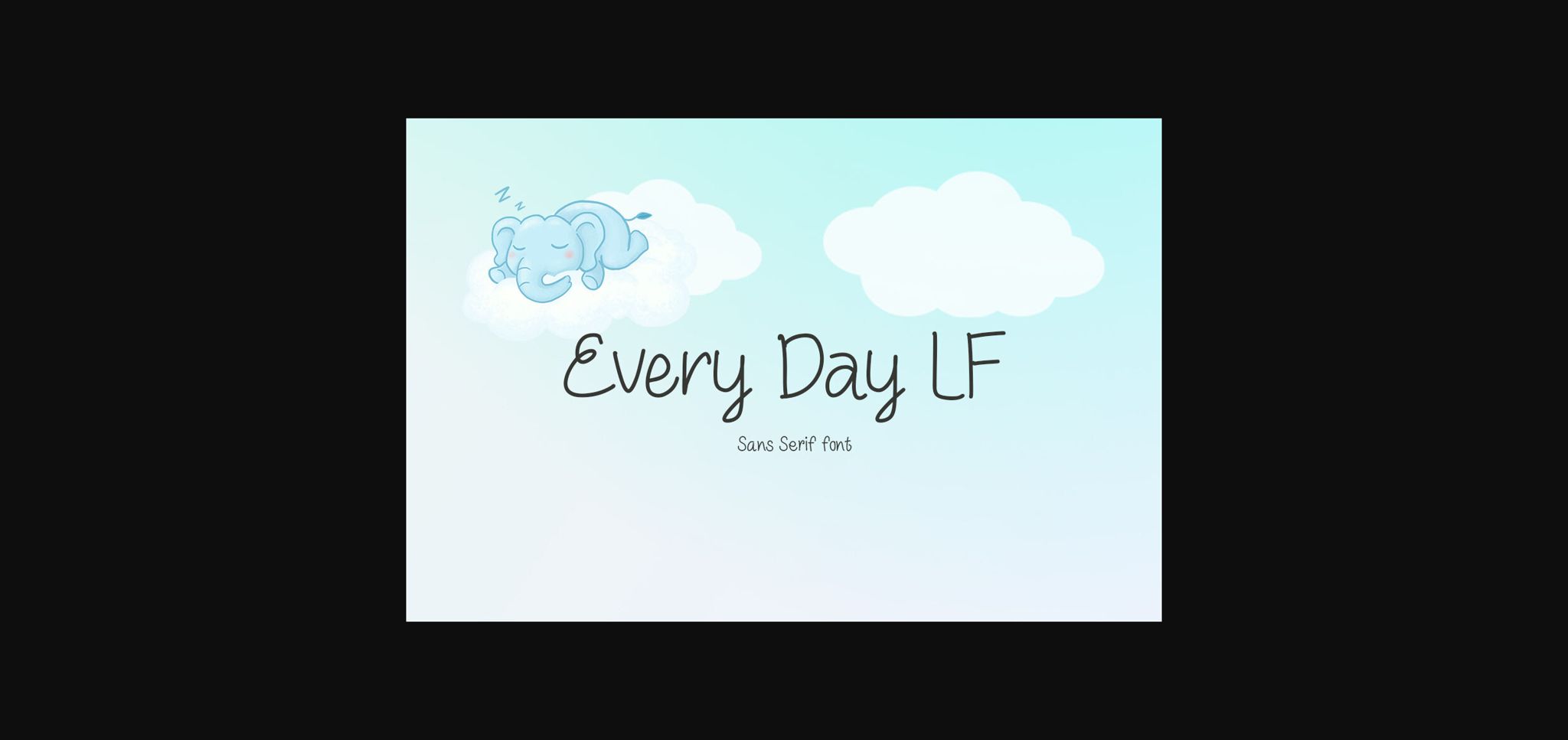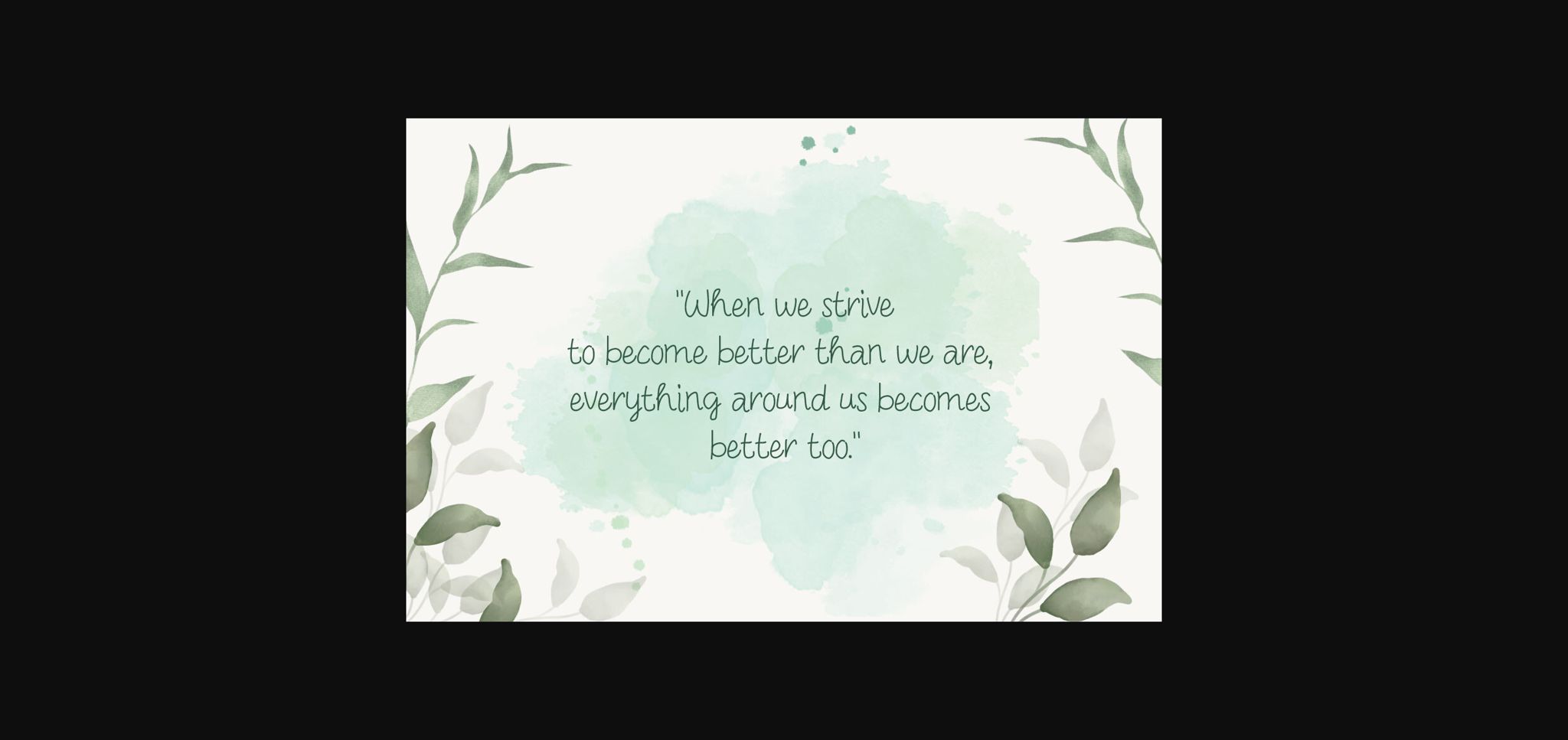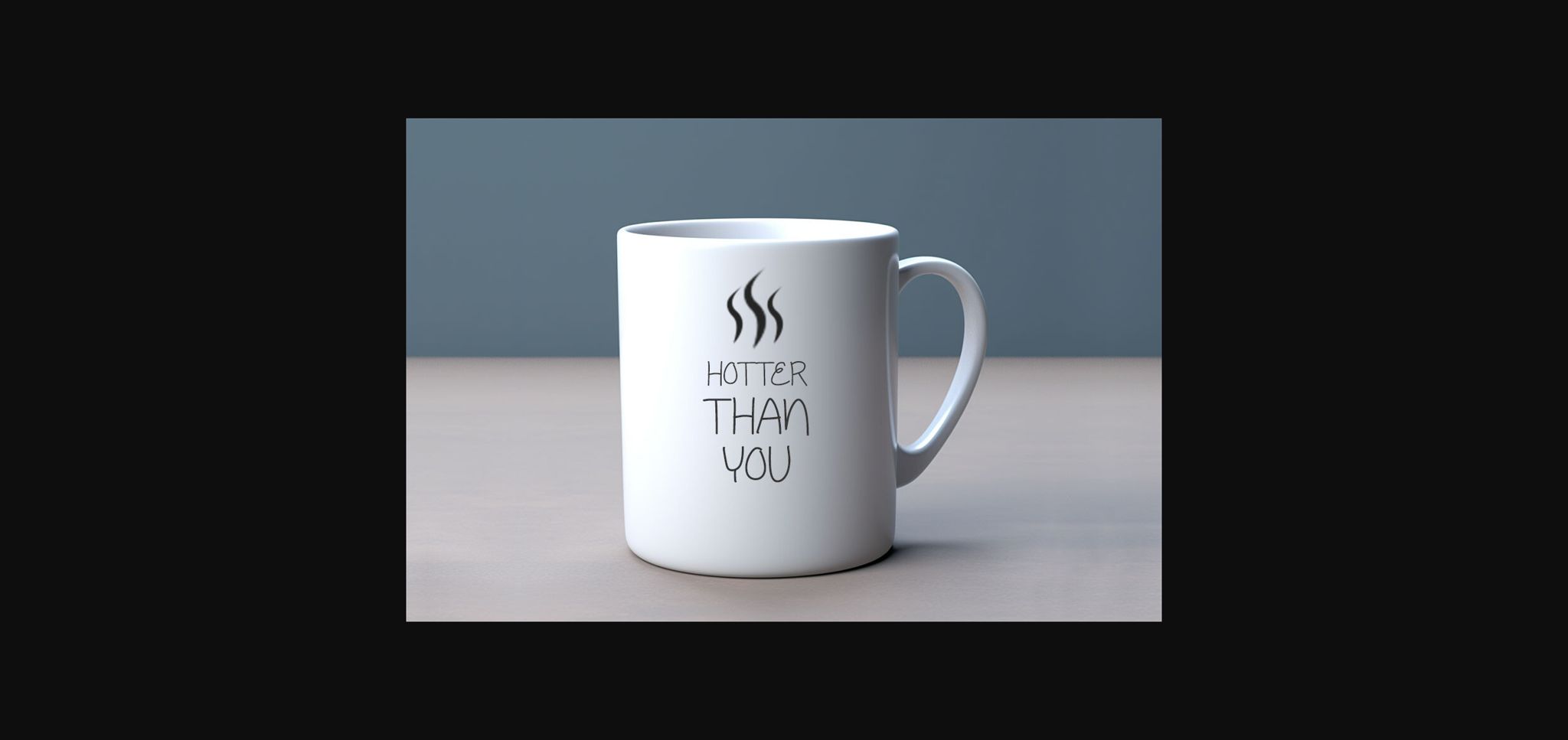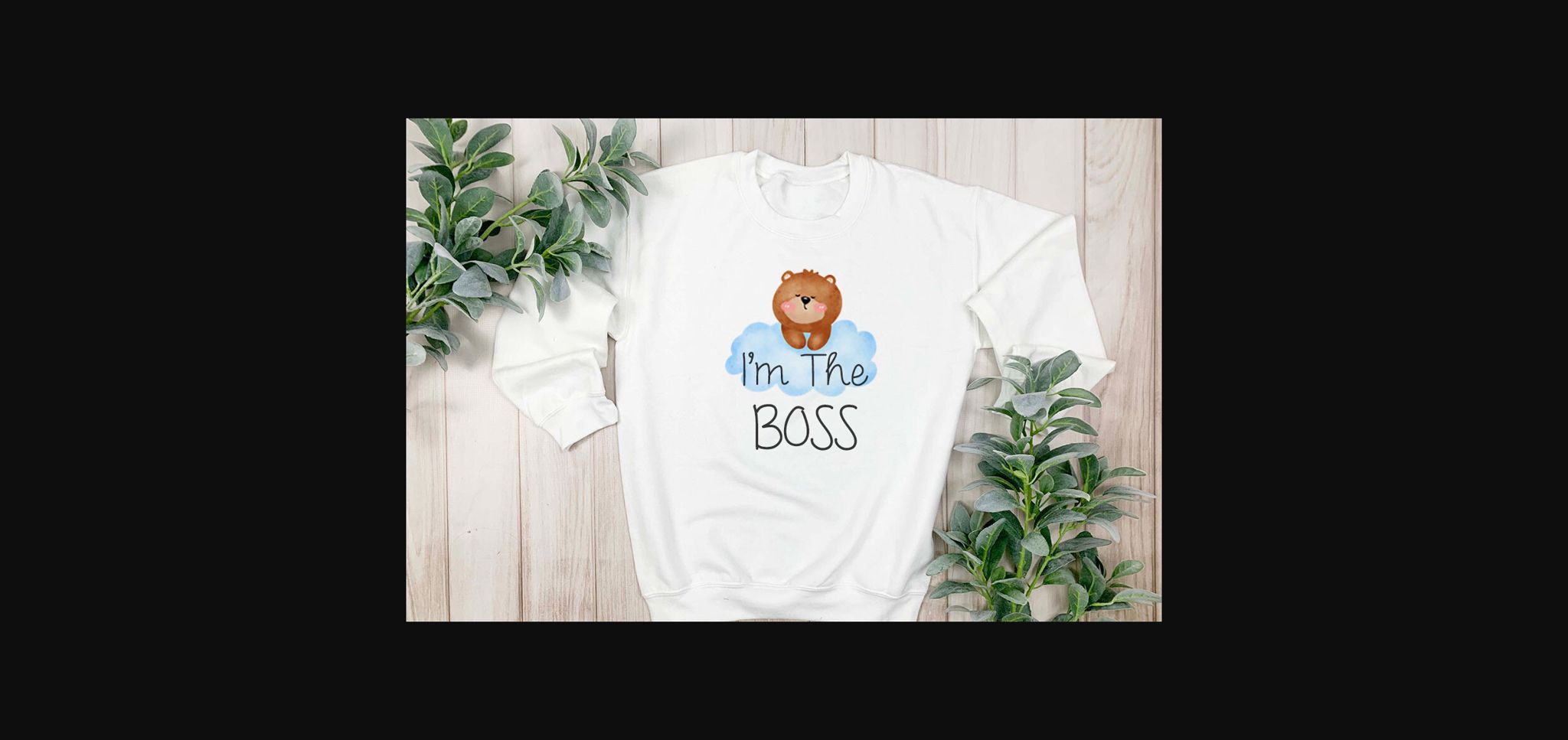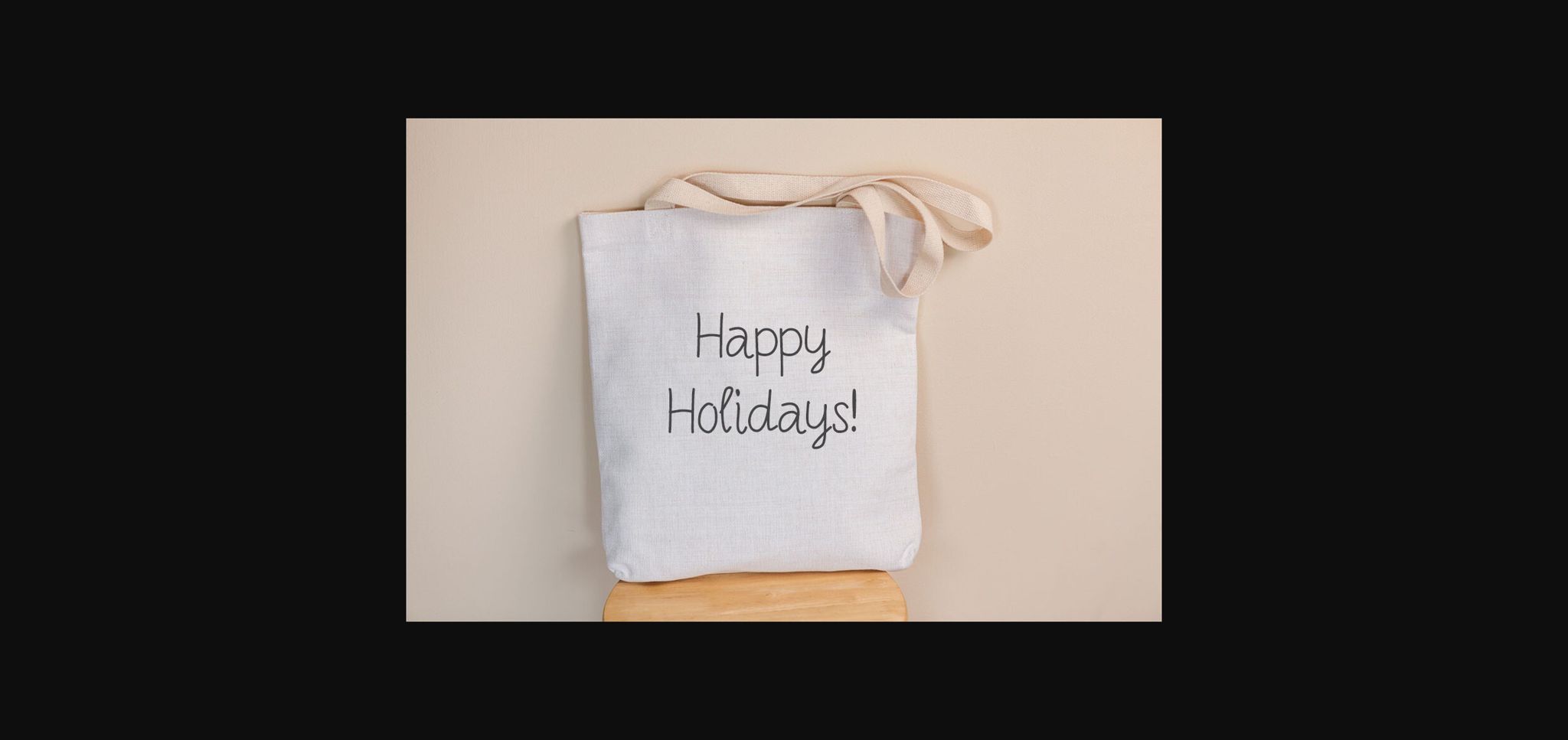
Every Day Lf Font
About Every Day Lf Font
Every Day LF is a friendly, stylish and cute handwritten font. It informal style and casual vibe. It would be awesome to your fun projects or diary planner, on wedding invitations, thank you cards, quotes, greeting cards, logos, posters, blogs, bag, T Shirt, clothing, eye-catching social media posts, and much more!